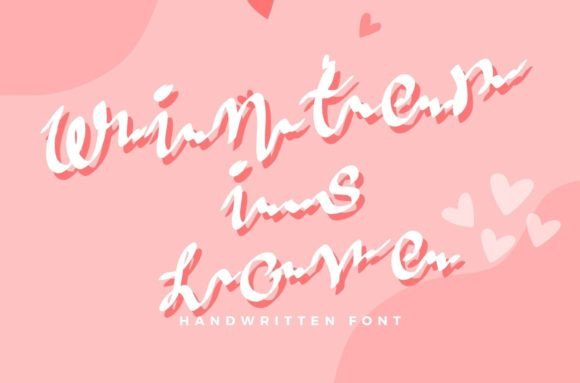
Prepare yourself to be enchanted by Winter is Love, the script font that will ignite your creativity and transport you to a realm of boundless imagination. Its whimsical curves and elegant strokes dance harmoniously, evoking the magic of a winter wonderland.
With Winter is Love, you can unleash your inner storyteller and craft captivating comic lettering that leaps off the page. Its playful personality adds a touch of charm to any design, whether it's a whimsical logo, a heartfelt wedding invitation, or an eye-catching social media post.
Imagine your words taking flight, carried by the delicate swashes and graceful flourishes of Winter is Love. Its versatility extends beyond comics, making it a perfect choice for branding, greeting cards, posters, and more.
This font possesses an inherent charm that instantly elevates any project, adding a touch of warmth and sophistication. It's a font that speaks to the heart, inviting viewers to immerse themselves in its enchanting aura.